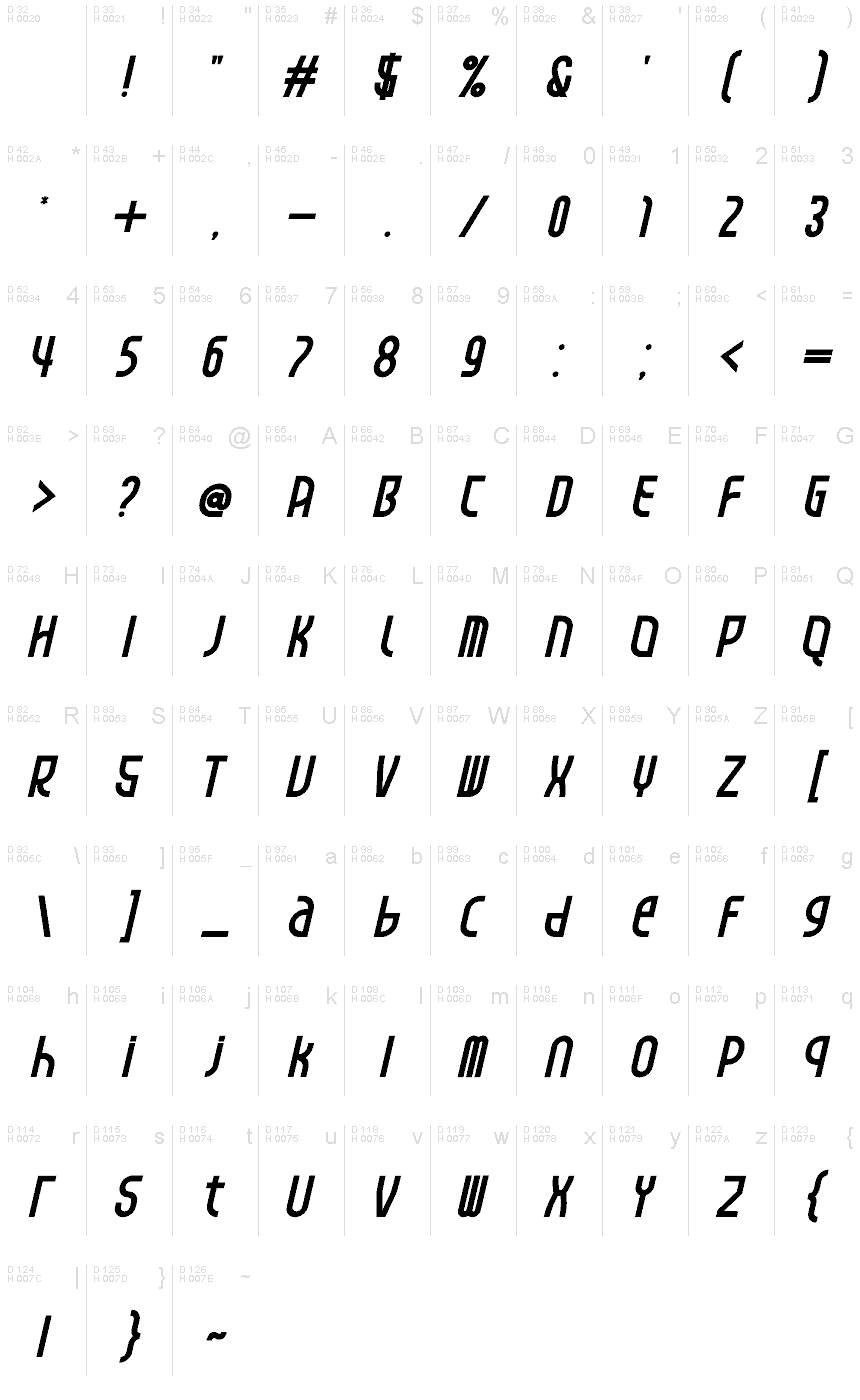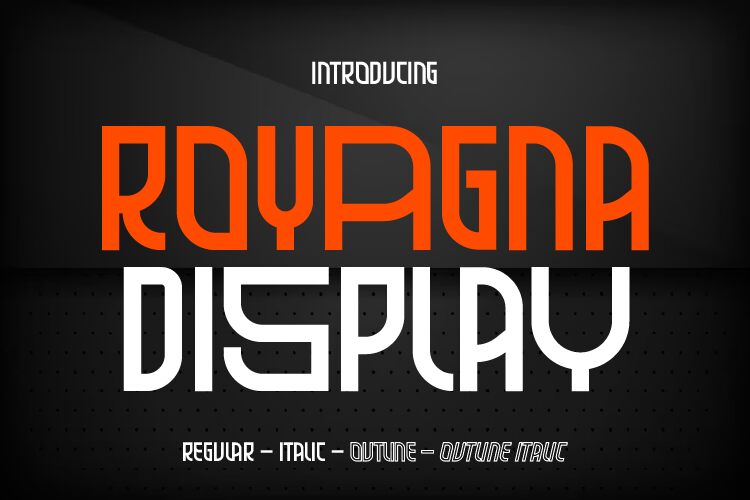
Royagna Italic
Royagna Italic font by Rvandtype is a uniquely crafted condensed font with sleek, modern design and geometric influences. Its forward-leaning appearance holds dynamic curves integration for offering a truly streamlined aesthetic and contemporary appeal. The minimal and professional letters express key brand characteristics in more engaging ways than any traditional typography.
Be it a logo, badge, poster, or packaging, businesses can properly communicate through an original identity with the help of this font. Bloggers can also find use for it in their websites as Royagna Italic simply enhances every type of medium it’s featured on! Advertising concepts and posters are understandable fields able to benefit from such writing style.